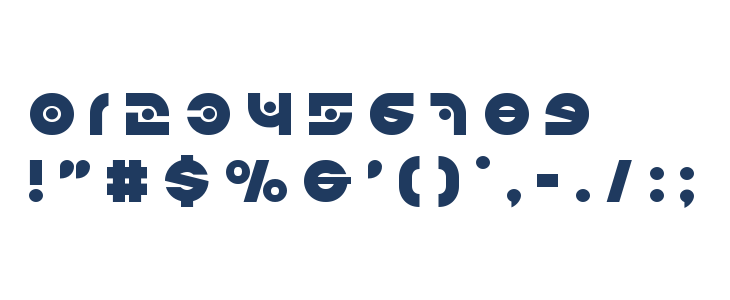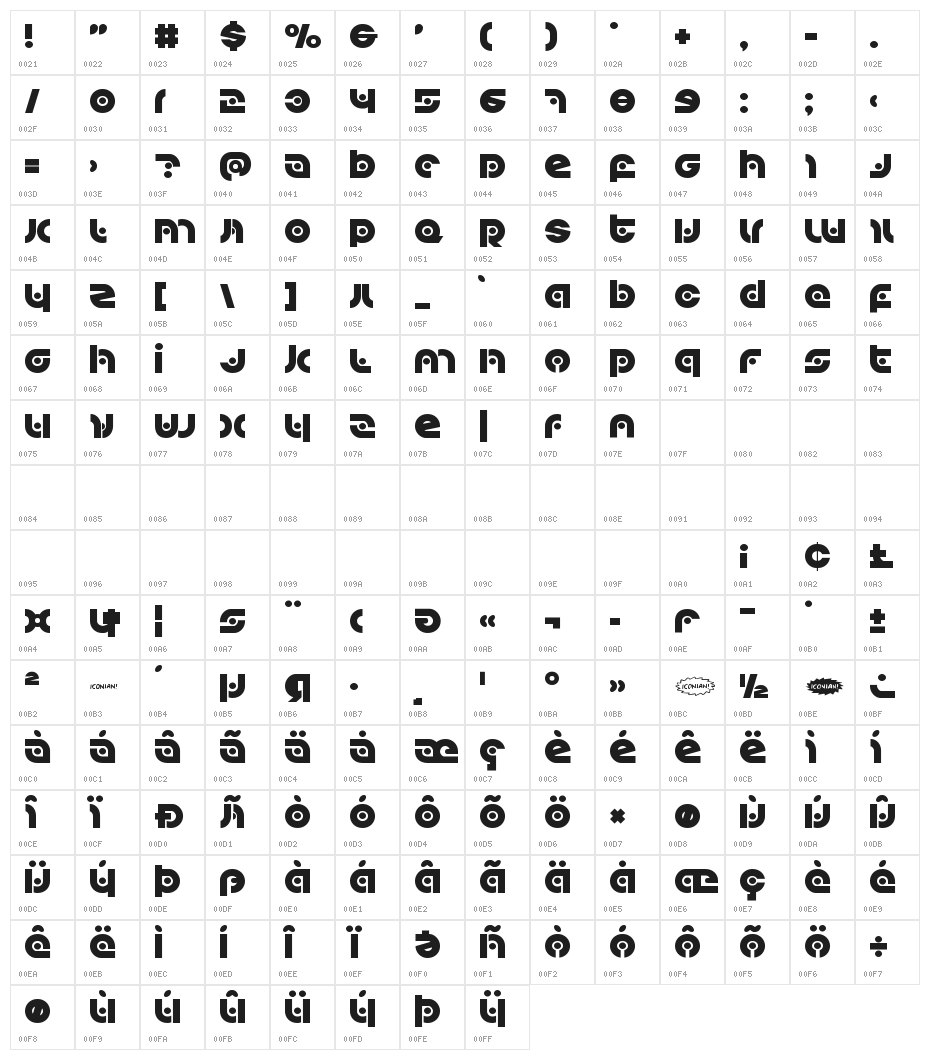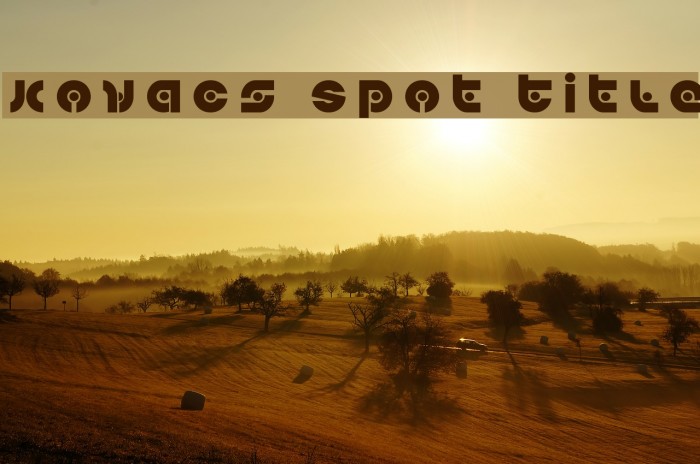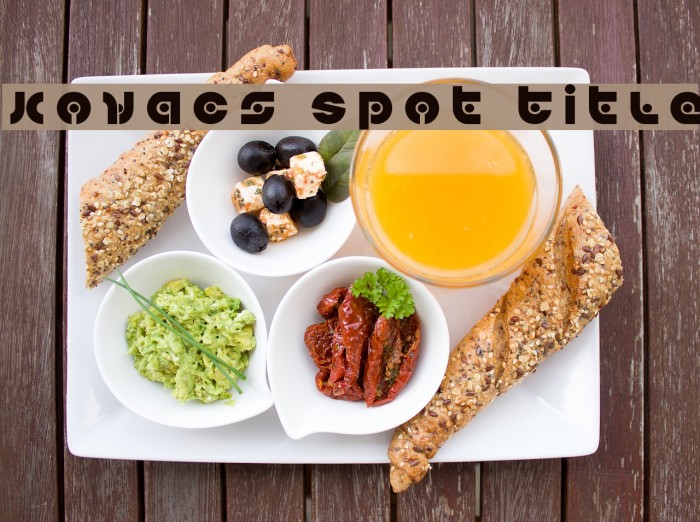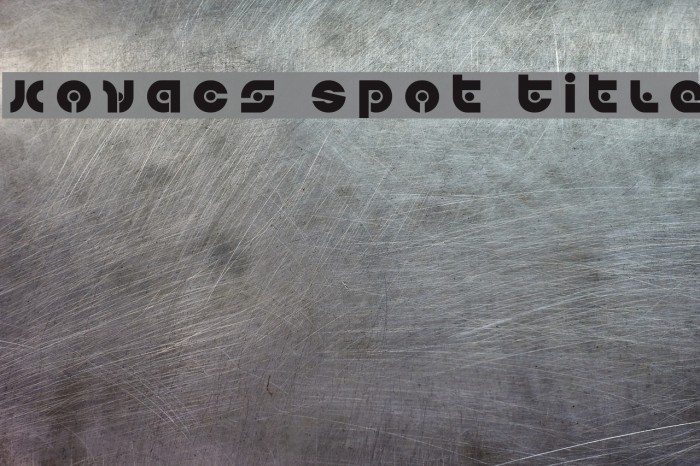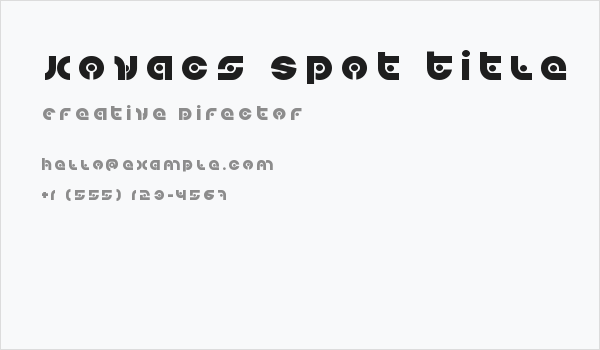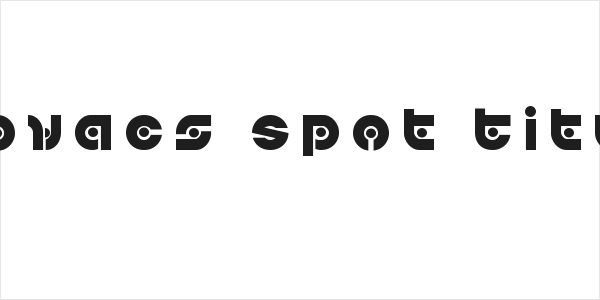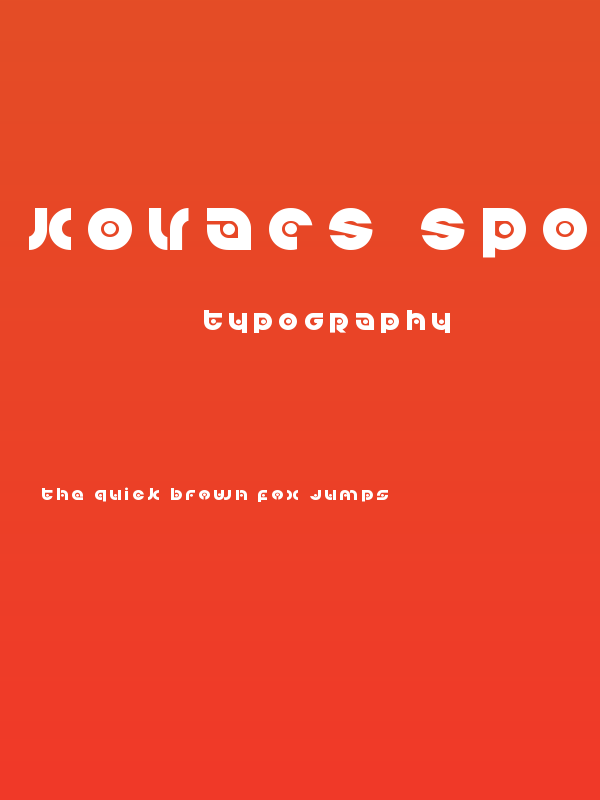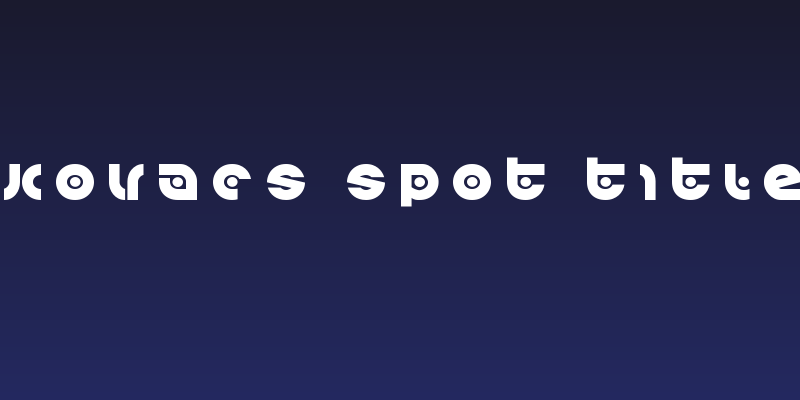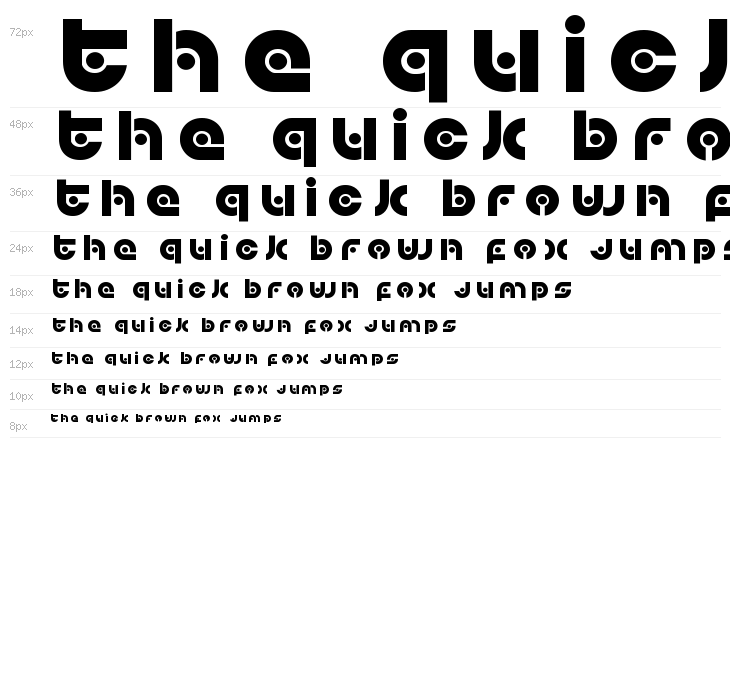
Kovacs Spot Title Font
Kovacs Spot Title Description
This font exhibits a bold and geometric style, characterized by its unique and modern letterforms. Each character is crafted with a combination of curves and straight lines, creating a futuristic and abstract appearance. The uppercase and lowercase letters share a consistent design language, with a focus on symmetry and balance. The numerals and special characters maintain the same aesthetic, ensuring a cohesive look across all glyphs. This font's distinct style makes it stand out, ideal for projects that require a contemporary and artistic touch.